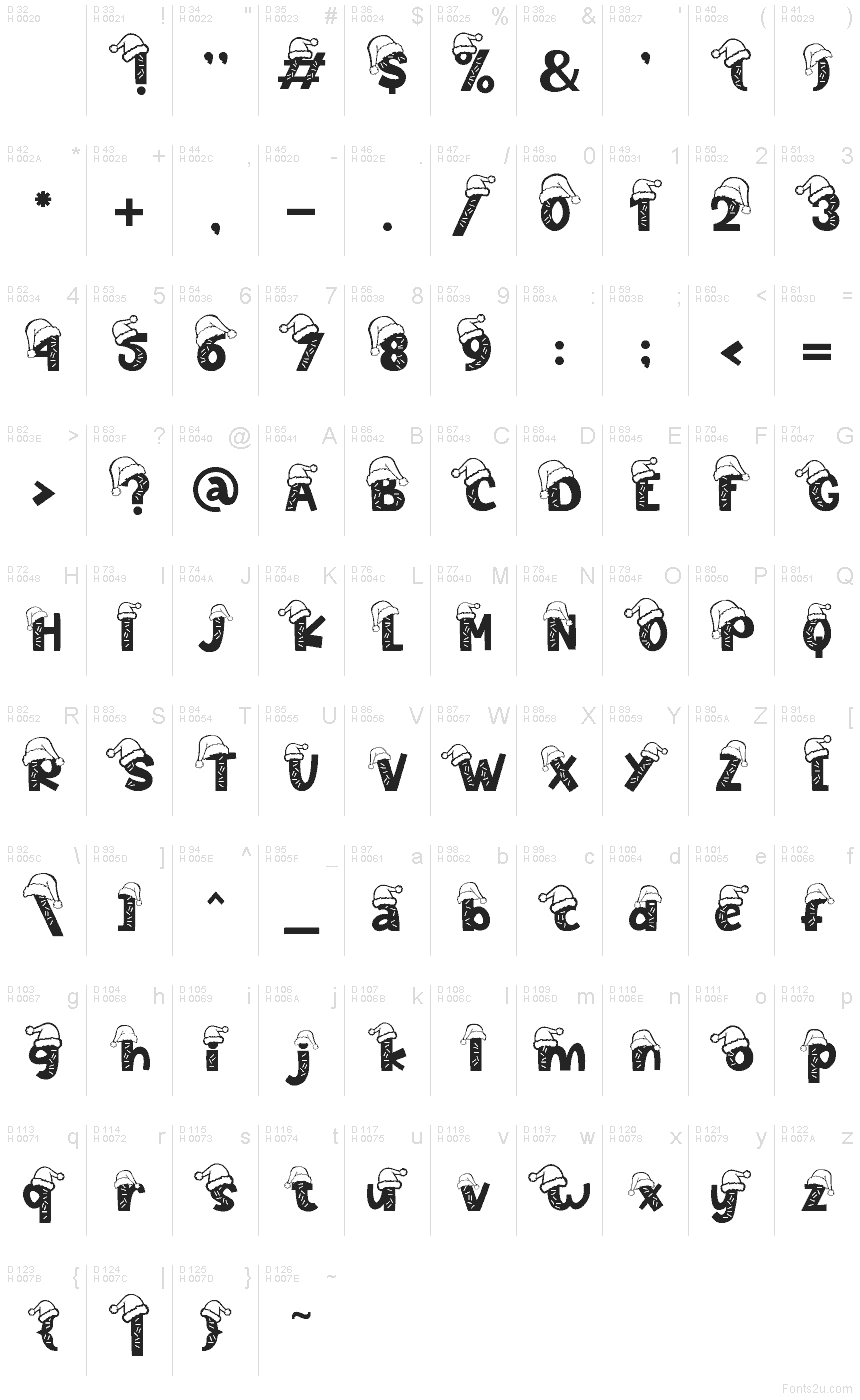
Frosty Faktur Hat
Frosty Faktur Hat font by PutraCetol Studio is a free Christmas decorative typeface that turns every word into a tiny snowy scene. Chunky black letters are wrapped in playful stripe patterns, while floppy Santa hats sit on top like they’ve just been tossed there. The contrast between the inky, filled-in bodies and the sketchy, outlined hats gives the Frosty Faktur family a hand-drawn, storybook charm that feels warm and a little mischievous.
Using Frosty Faktur Hat, holiday messages instantly feel like they belong on gift wrap or a cocoa tin. This free font shines on Christmas cards, party invitations, kids’ worksheets, stickers, gift tags, and cheerful social media posts. Keep it big so the textures and hats stay clear, and pair it with a simple rounded sans serif for body copy to let the headline steal the show.